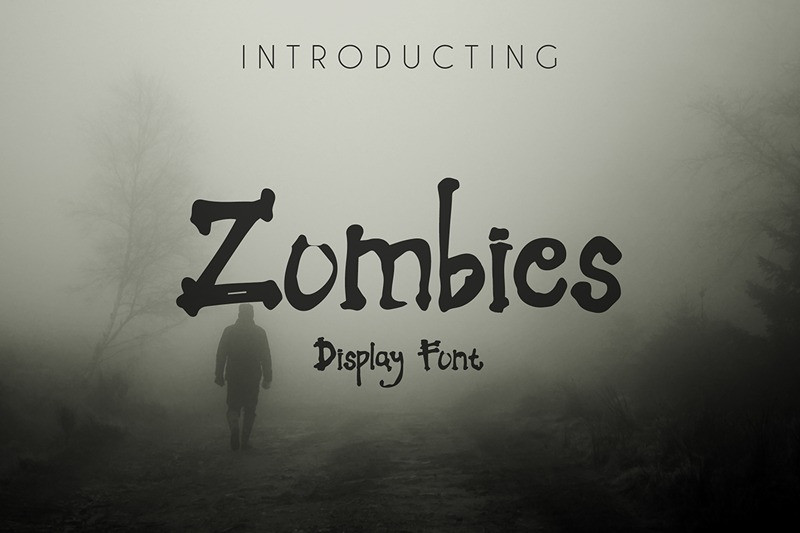
Zombies Display Font
Introducing, this is the newest font, I’ll name it
this font is Zombies.
Zombies is a font with a touch
horror and the curvy shapes in each letter.
Zombies is great for:
titles, magazines, book covers, logos, t-shirt designs, brands, posters,
and also suitable for watermark photography.